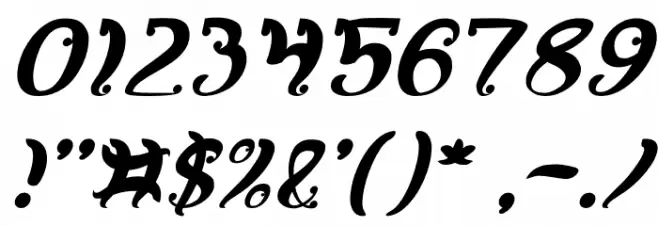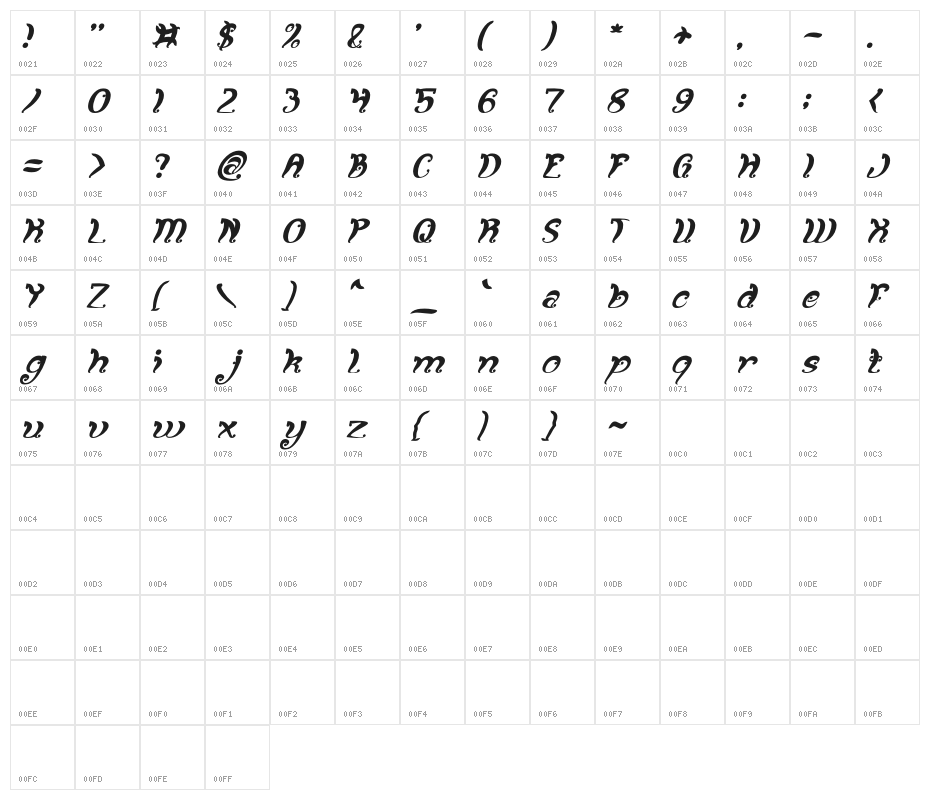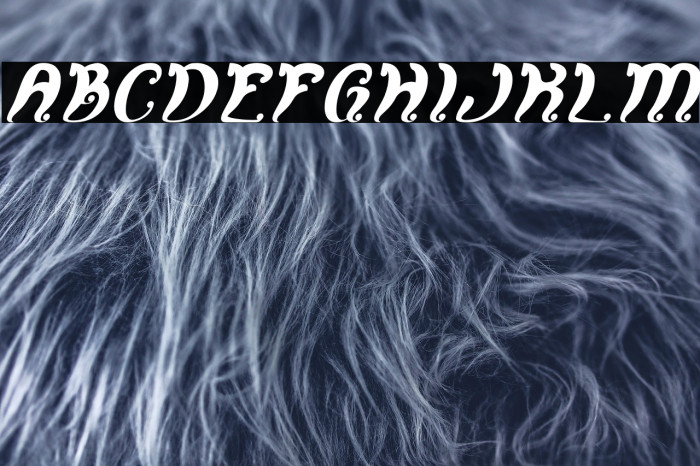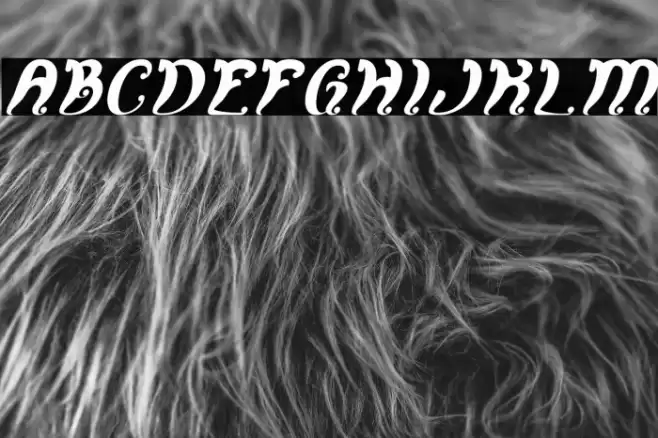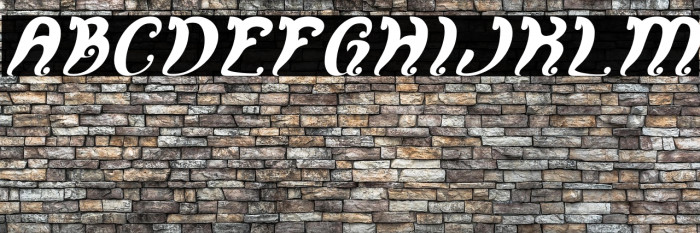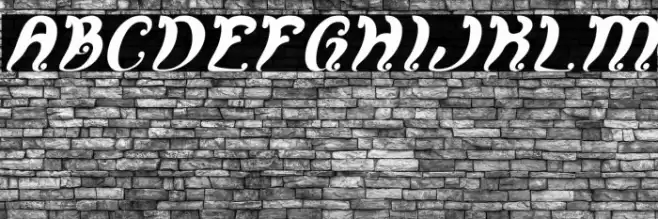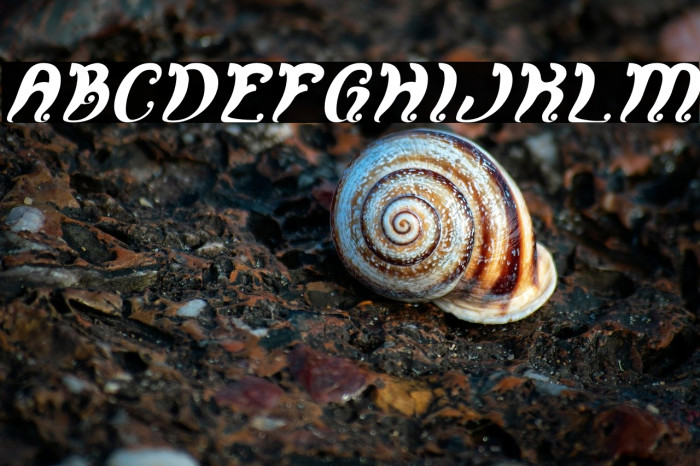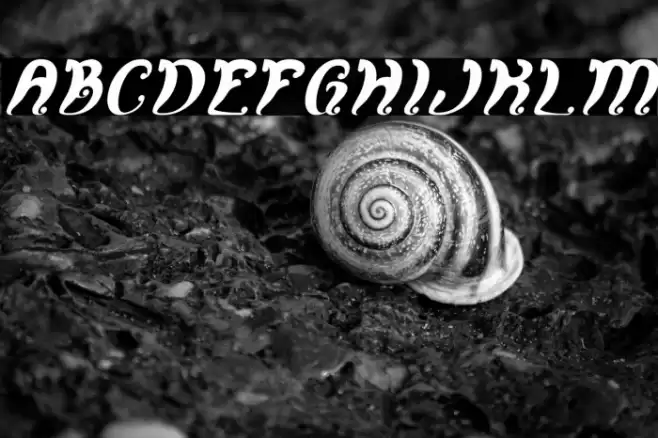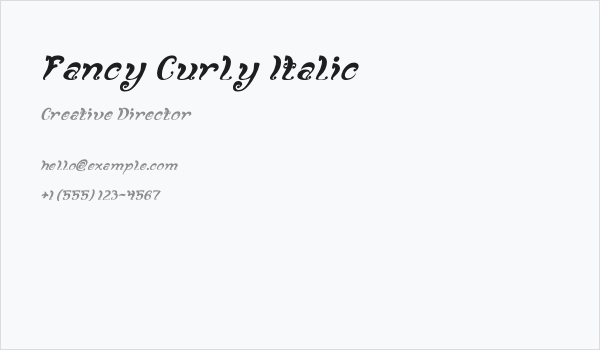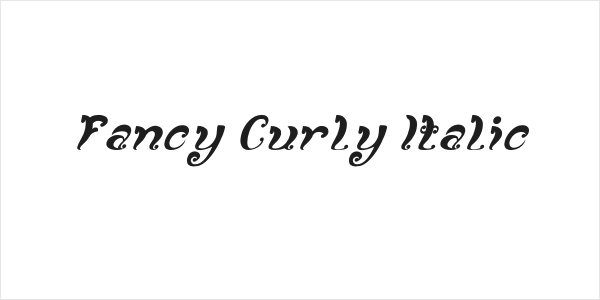
Fancy Curly Italic Font
Fancy Curly Italic Description
This font features a whimsical and curly design, characterized by its playful and flowing strokes. The uppercase and lowercase letters exhibit a consistent use of curls and loops, giving it a lively and dynamic appearance. The numbers and special characters maintain this decorative style, ensuring a cohesive look across all elements. The font's overall aesthetic is both elegant and fun, making it suitable for creative and artistic projects. Its unique style can add a touch of personality and flair to any design.